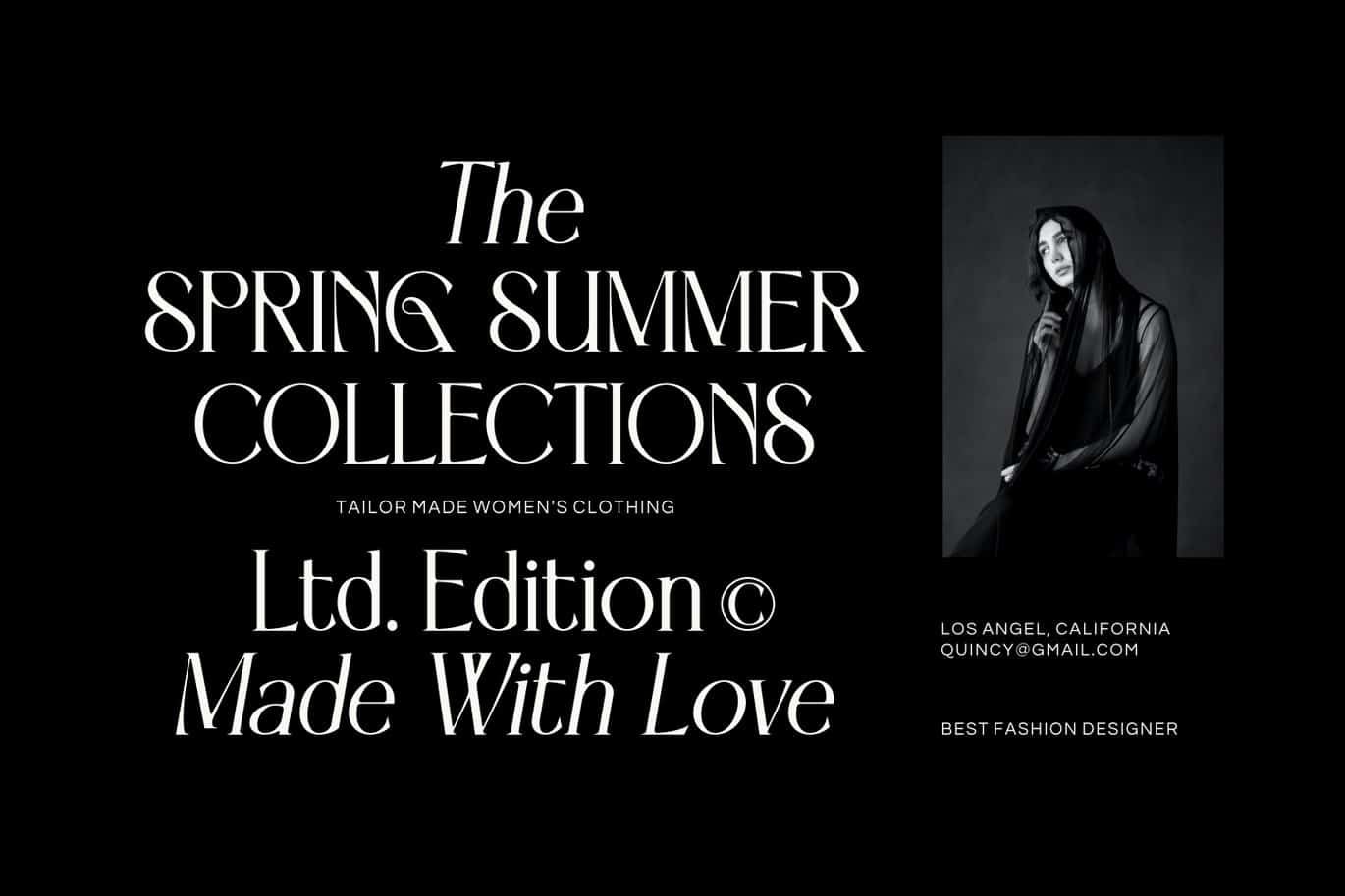
Gamgote – Luxury Font
Presenting Gamgote Font is suitable branding, book, logo, magazine, fashion product, quotes, poster, headline, and etc. Our fonts have Uppercase & Lowercase, Numeral & Punctuation, Multilingual support and Opentype Features. For Amazing designs you can mix with other fonts as a complement.